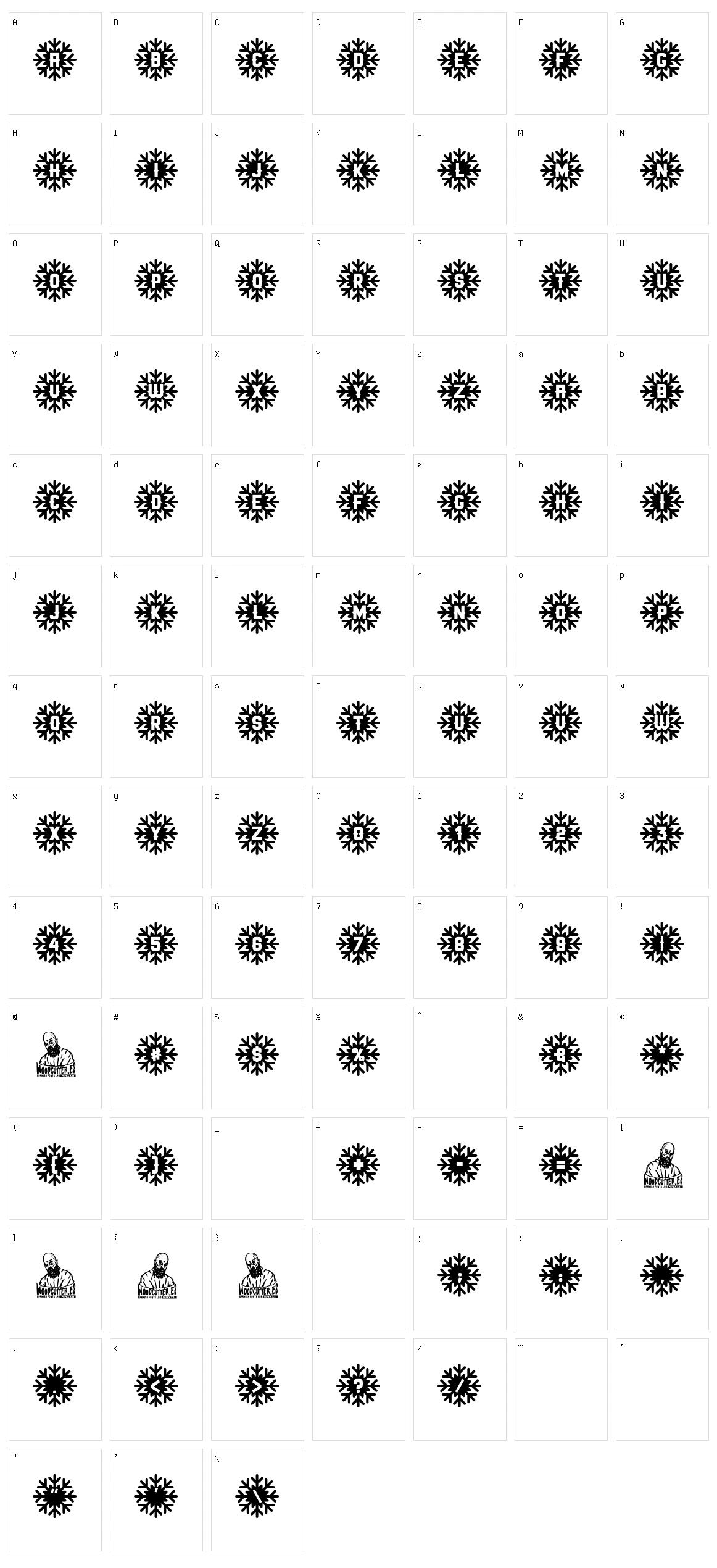
The free font Snow Star Type is carefully designed by Woodcutter, showcasing a thoughtful balance of creativity and usability and falls under the Christmas font style. When you download the ZIP file, it contains only 57.61 KB of font files, making it lightweight and quick to download. Please review the license details below to understand permitted usage and distribution rights. If license information is not available, we recommend using this font for personal projects only or contacting the author directly for commercial usage permissions.